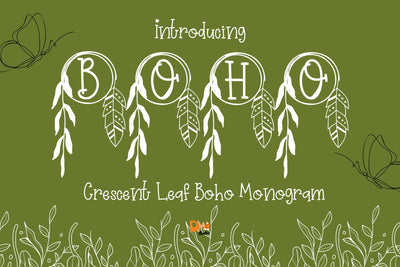
Crescent Leaf Boho Monogram
Crescent Leaf Boho Monogram – Elegant Serif Monogram Font with Crescent & Leaf Motifs
Crescent Leaf Boho Monogram is a celestial-inspired serif monogram font, featuring uppercase letters enhanced by graceful crescent moon shapes and flowing leaf accents. Perfect for bohemian wedding designs, spiritual branding, Cricut projects, and artisanal packaging, this typeface blends mystical energy with earthy elegance.
Crescent & Leaf Embellishments: Each character features a crescent moon and delicate leaf illustrations for a dreamy, organic look.
Elegant Serif Structure: Crisp serif letterforms balance the soft curves of the embellishments.
Boho Celestial Style: Designed for nature lovers, spiritual creators, and artistic monogram use.
Ideal For: Wedding monograms, personalized gifts, boho branding, celestial stationery, Cricut crafts, and boutique packaging.